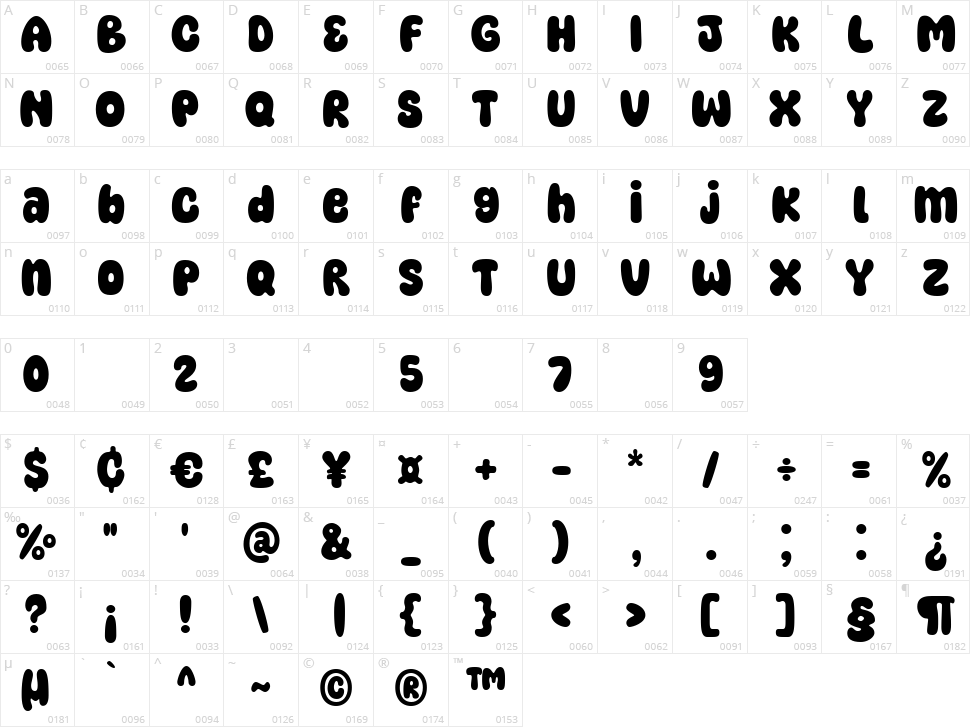
Introducing Super Happy: A Font Overflowing with Joy!
Imagine a font that bursts with sunshine and sparkles with delight. That's Super Happy! This exuberant typeface boasts playful, round curves and a bubbly personality that's guaranteed to bring a smile to your face.
Introducing Super Happy: A Font Overflowing with Joy!
Imagine a font that bursts with sunshine and sparkles with delight. That's Super Happy! This exuberant typeface boasts playful, round curves and a bubbly personality that's guaranteed to bring a smile to your face.